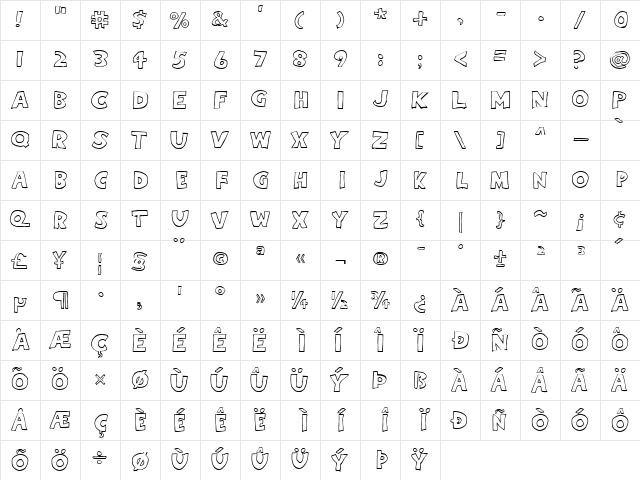
Eighty Percent Caps Outline Regular
Design Context for Eighty Percent Caps Outline Typeface
Eighty Percent Caps Outline brings ornamental detail and strong personality to headlines and identities, where visual impact matters more than quiet functionality.
Font Pairing: Pair with a clean neutral sans-serif for body copy to let Eighty Percent Caps Outline's character lead without overwhelming the composition.
Pro Tip: Treat Eighty Percent Caps Outline as the centrepiece of your typographic hierarchy. One strong heading set in a decorative face can carry an entire layout.